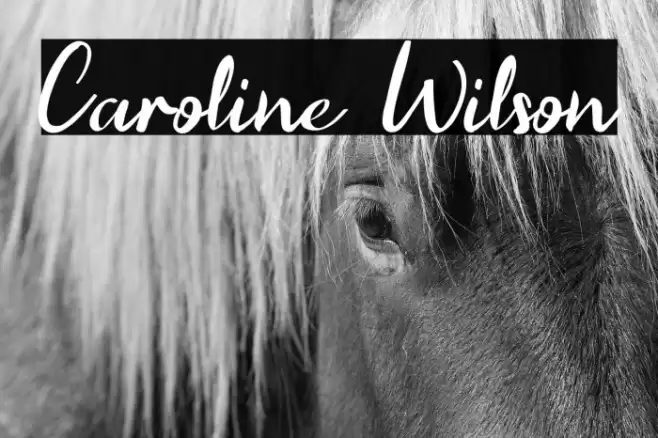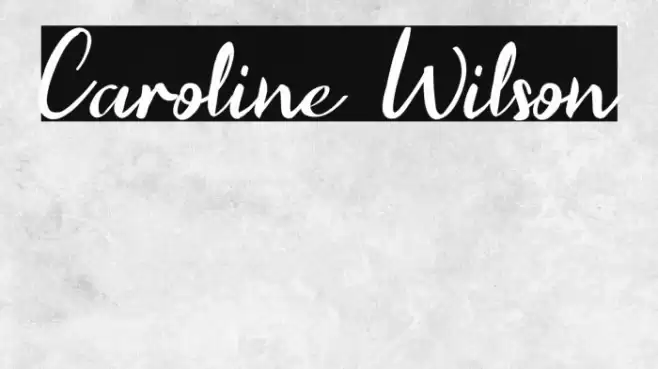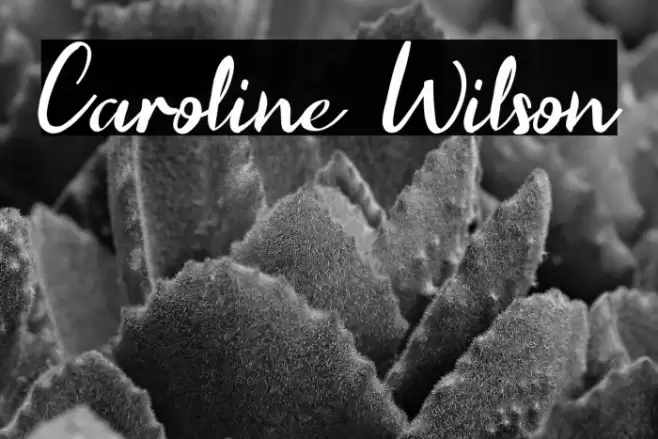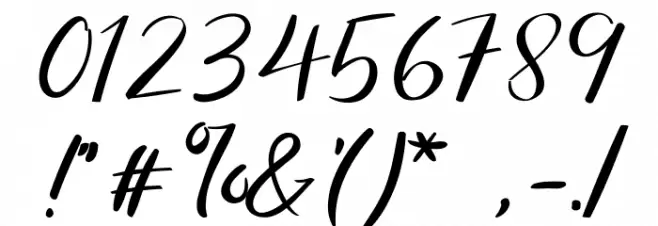
Caroline Wilson Font
Caroline Wilson Description
This font exudes a dynamic and elegant handwritten style, characterized by fluid strokes and a natural flow. The uppercase letters are bold and expressive, with a slight slant that adds a sense of movement and grace. The lowercase letters maintain a consistent style, offering a harmonious balance between readability and artistic flair. Numbers and special characters are crafted with the same attention to detail, ensuring a cohesive look across all text elements. The overall appearance is both sophisticated and approachable, making it suitable for a variety of design applications.
A dynamic and elegant handwritten font with fluid strokes and natural flow from Regular fonts.
- Proposed Projects: Ideal for wedding invitations, greeting cards, personal branding, and elegant packaging designs.
- Overall Style: Elegant, Artistic
- Use Case: Headlines, Invitations, Branding